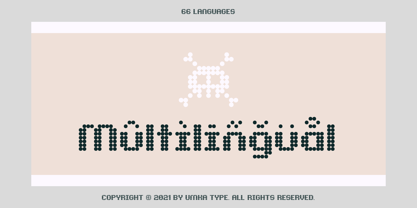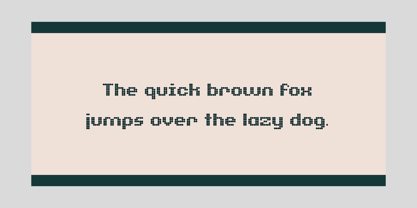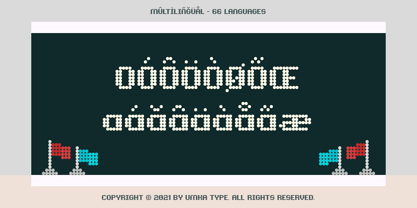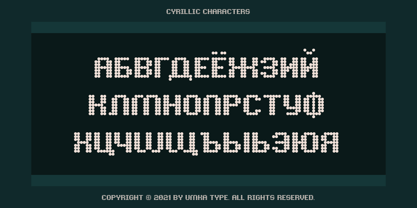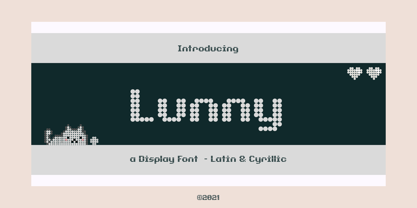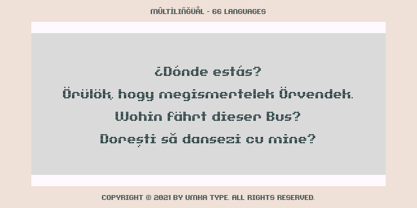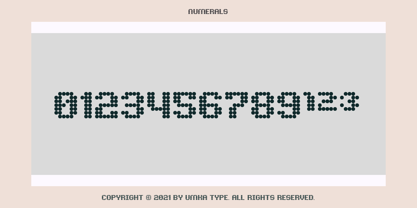
Lunny
by AlperCakici
The Lunny Font Family was designed by Alper Çakıcı and published by AlperCakici. Lunny contains 1 styles. More about this family
"Lunny" is a delightful dotted font that adds a playful touch to your designs. With support for 66 languages, including the Cyrillic alphabet, it offers versatility and charm for a wide range of projects.
Whether you're creating whimsical posters, eye-catching headlines, or fun branding materials, Lunny's unique dotted style is sure to make a statement. Its modern look and language support make it a great choice for projects that require a touch of creativity and international appeal.
Designers: Alper Çakıcı
Foundry: AlperCakici